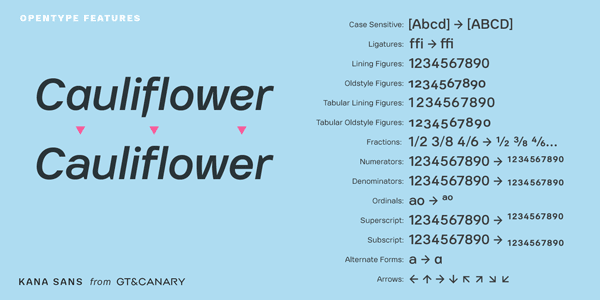
Kana Sans Type Family.
Kana Sans is a font family, which combines modern and classic font design elements. Type designer Takaaki Goto has created this type family for his foundry GT&CANARY. This sans serif family works great for long texts, modern branding projects, and any kind of web and print designs. Kana Sans consists of 6 weights plus matching italics. Its OpenType features provide plenty of room for different typographic creations.